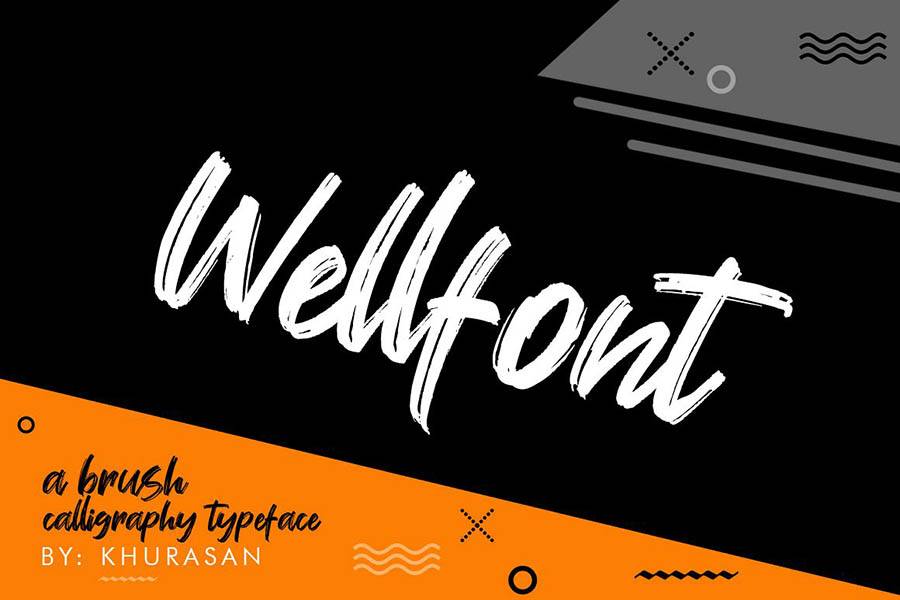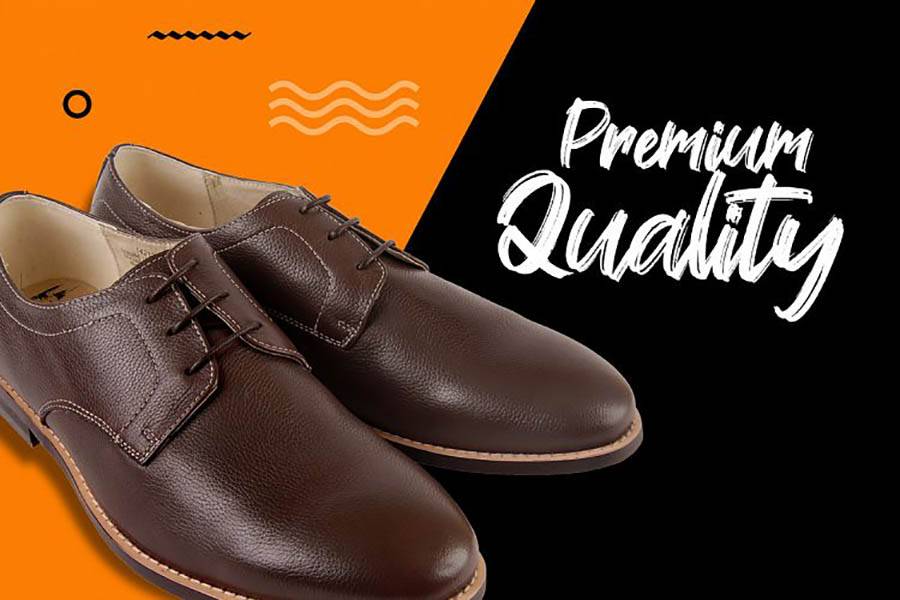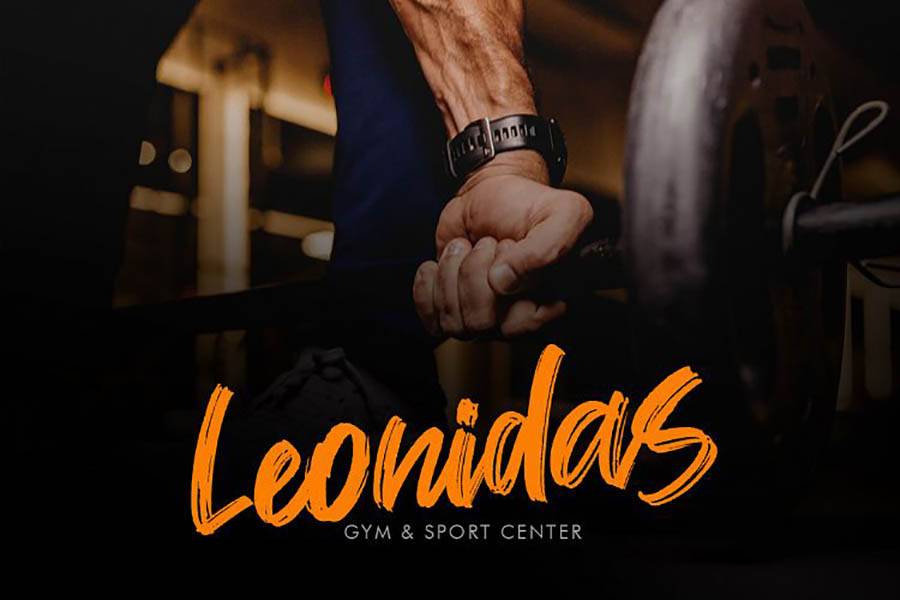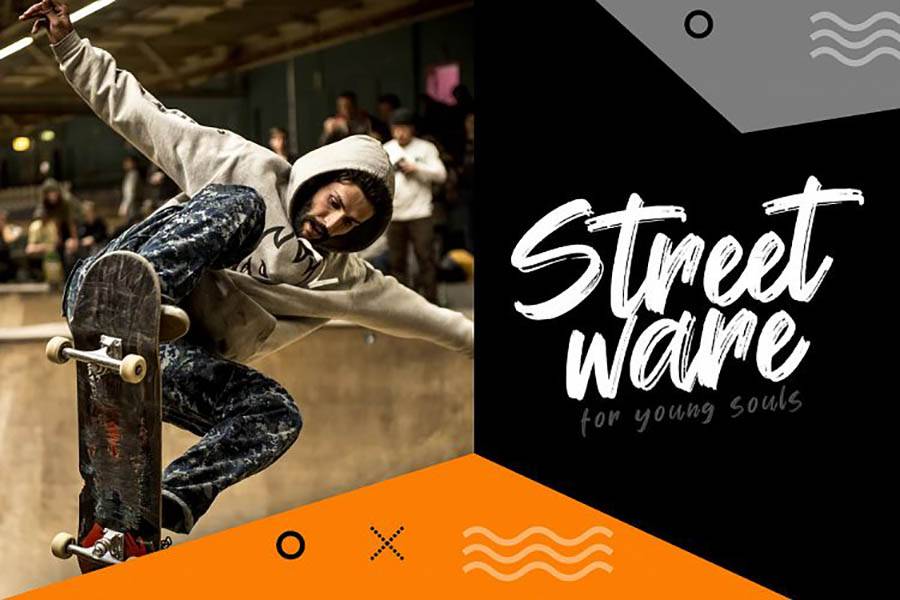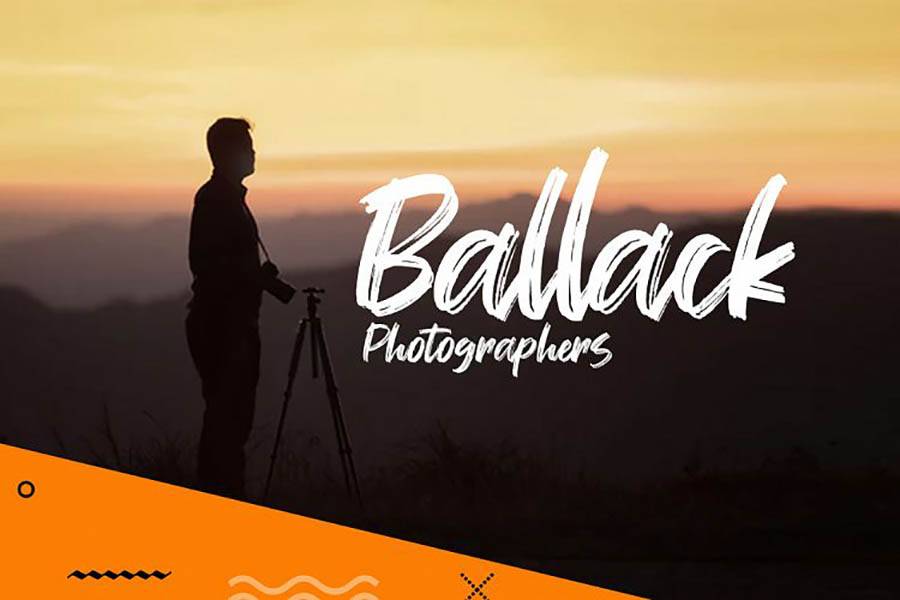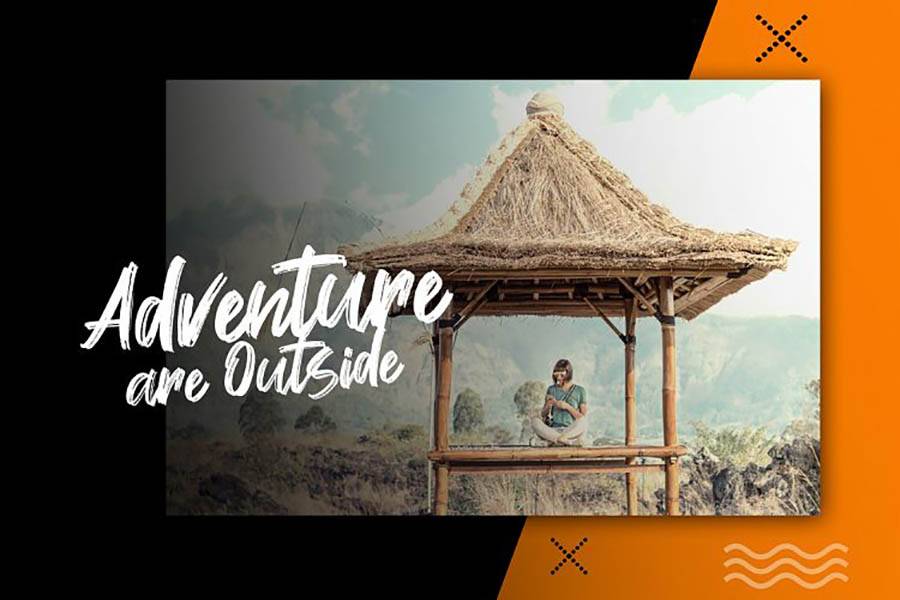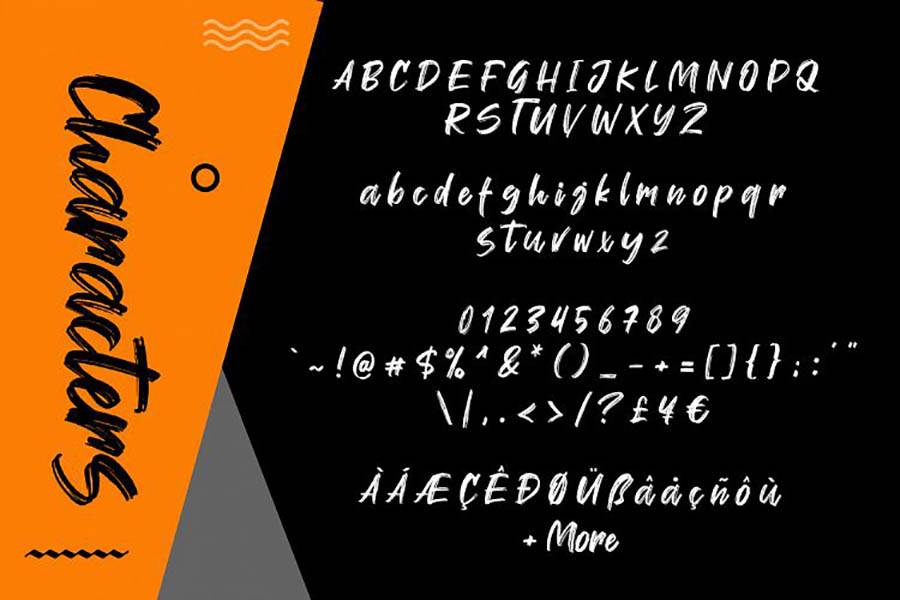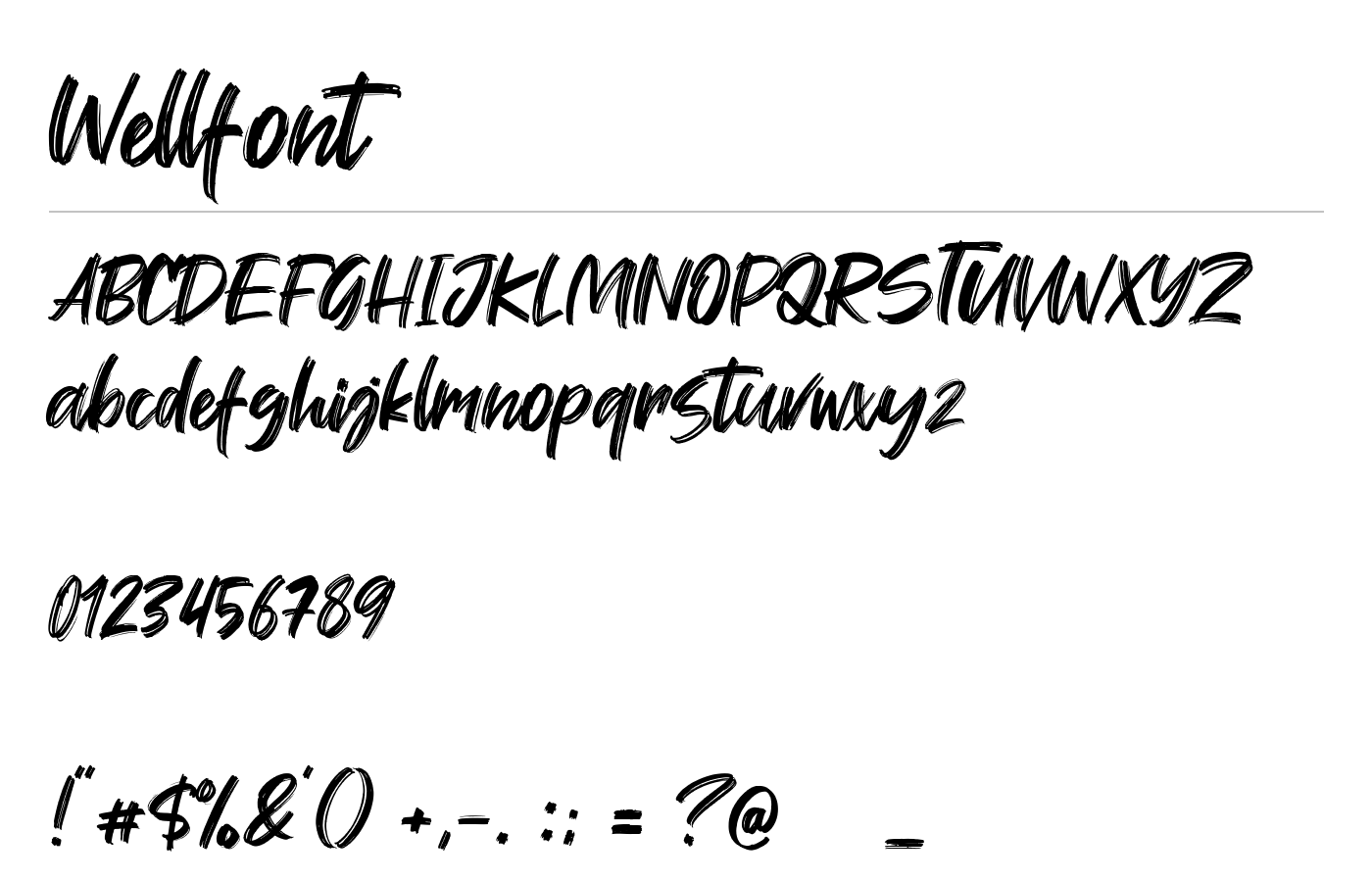
Wellfont Script is a lively and expressive brush script font that features dynamic, textured strokes with a casual handwritten feel. Its slightly condensed letterforms and energetic flow make it ideal for designs needing a bold, artistic touch, such as branding, posters, and creative headlines. With its informal yet striking style, Wellfont Script brings personality and spontaneity to any project.
Wellfont Script Demo
About Wellfont Script Demo
| Font family | Wellfont Script Demo |